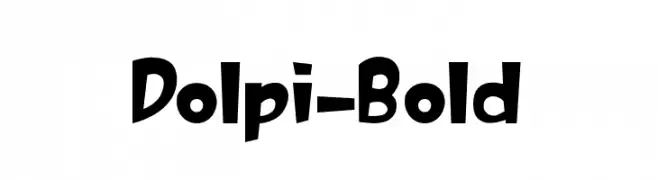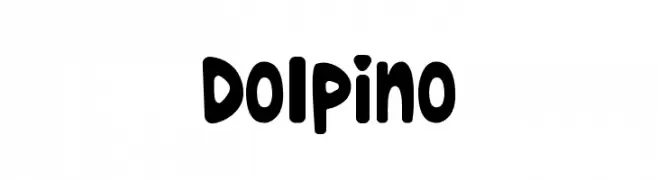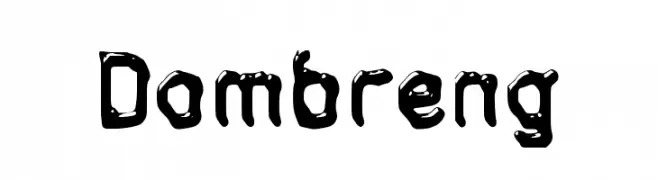
A bold, playful script font with a lively, handwritten style.
A fluid, wave-inspired script font with smooth, continuous lines.
A flowing script font with smooth, continuous lines and a modern aesthetic.
A sleek, modern font with geometric lines and a minimalist aesthetic.
A bold, slanted font with a grunge texture and dynamic presence.
A pictorial font composed of dolphin-themed illustrations.
A bold, playful font with exaggerated curves and angles, perfect for dynamic designs.
A bold, playful font with exaggerated curves and angles.
A playful, bold font with rounded, thick strokes and a friendly appearance.